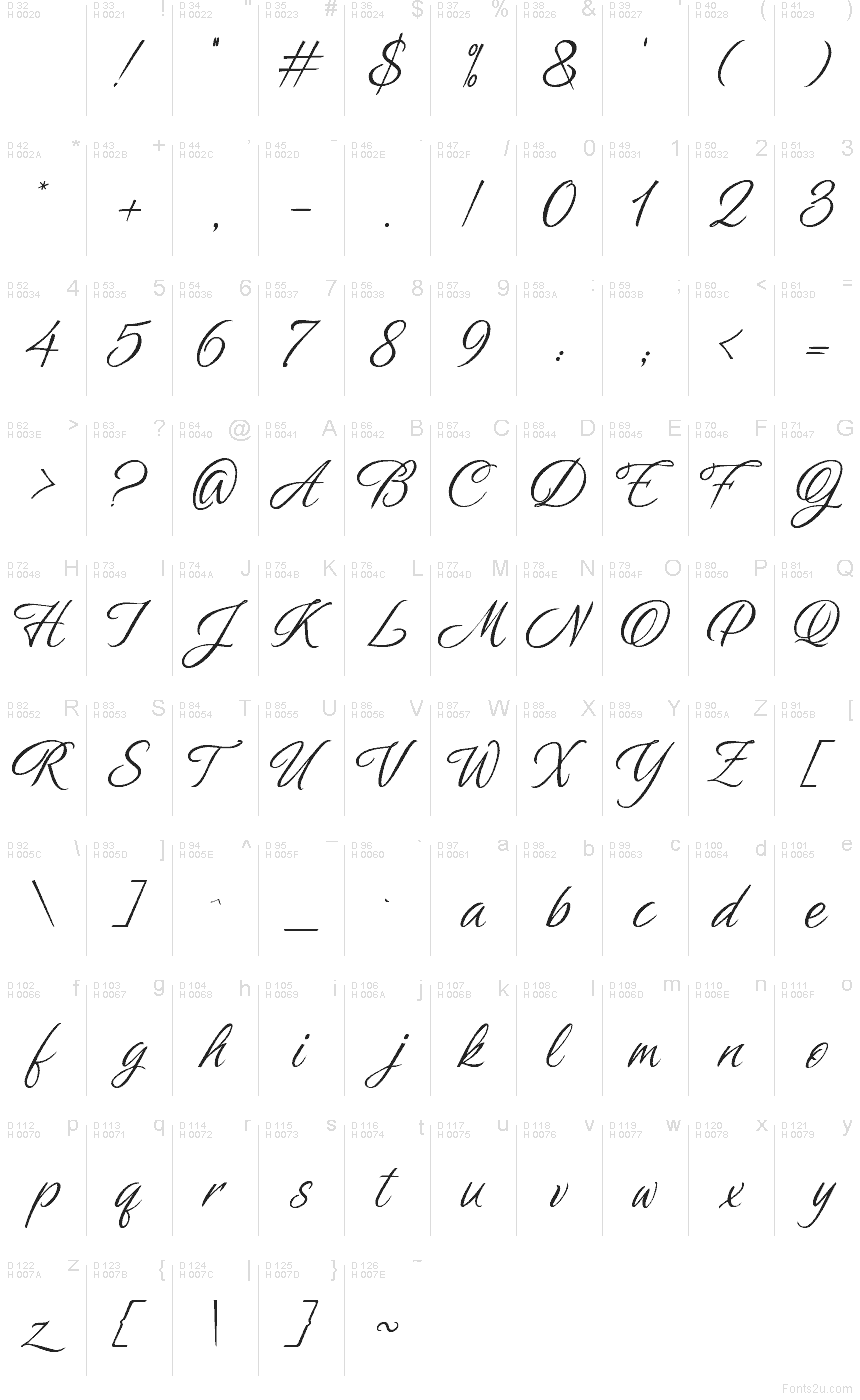
Valentina Orchestra
Valentina Orchestra font by BlackFridayFont FMF is a free calligraphy typeface that feels like ink swept across fine stationery. Its tall, elegant letters lean with a gentle slant, connected by long, silky strokes that give every word a sense of movement. Thin, precise lines bloom into lush curves, creating a romantic rhythm that looks hand-written yet polished enough for professional branding.
Using Valentina Orchestra, you can bring a soft, luxurious touch to wedding invitations, save-the-dates, event signage, beauty or boutique logos, packaging, and graceful social media graphics. This free font shines at larger sizes where its delicate loops can breathe. For a balanced layout, pair Valentina Orchestra with a clean sans serif for body text to keep your design both dreamy and readable.